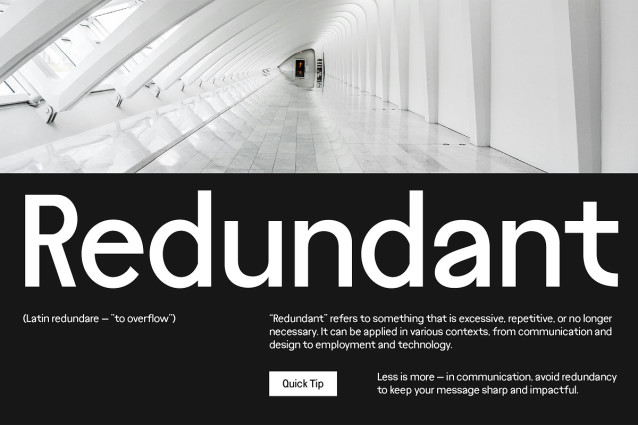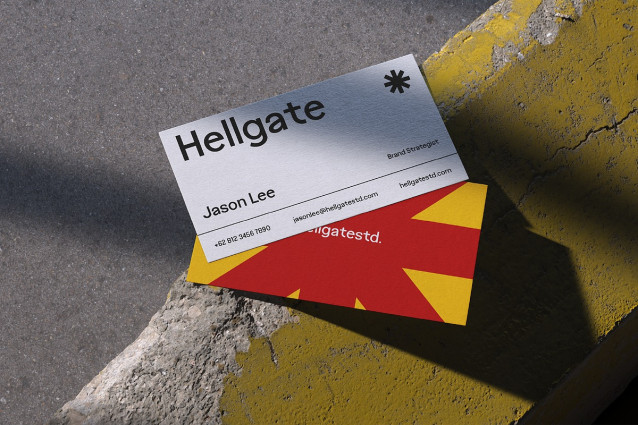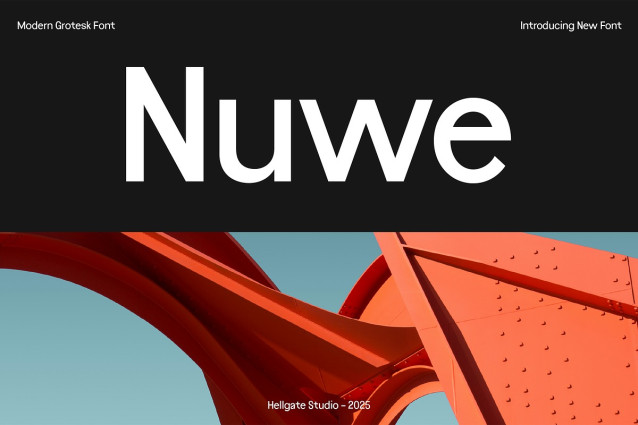
Nuwe Font
Nuwe Font. Designed to exude elegance, Nuwe is the perfect font choice for enhancing themes of grace and refinement. Enjoy the convenience of effortless text editing and colour customization while delivering rich, high-quality renders. Nuwe Font adds an artistic flair to your words, elevating your typography to the next level. Included file format: OTF for seamless typography design.